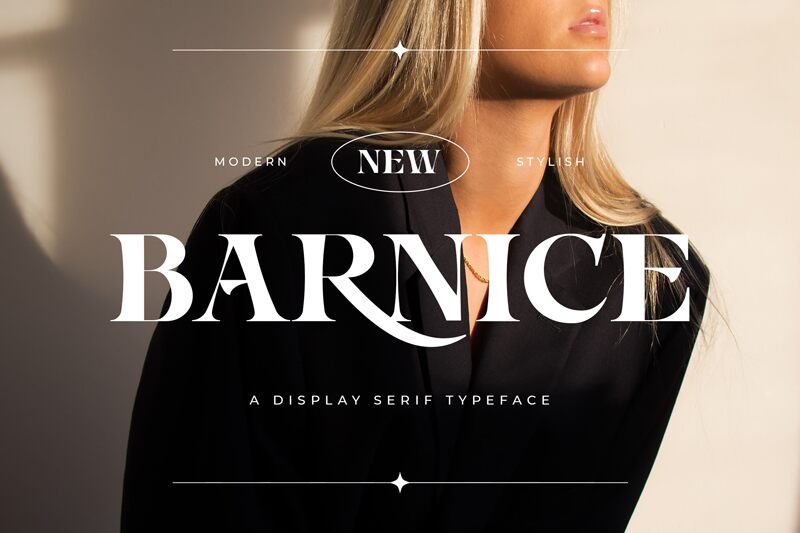
Barnice, designed by Typefactoryco, stands out with its bold and prominent serifs that command attention. Its modern take on the classic serif style infuses a sense of sophistication into every word. This font's assertive presence is softened by delicate curves, creating an aesthetic balance that's both striking and harmonious.
Perfect for headlines, branding, and advertising where a touch of elegance is desired, Barnice brings a luxurious feel to any project. Whether gracing the pages of a fashion magazine or anchoring the visual identity of premium goods, this font transforms simple text into a statement piece.